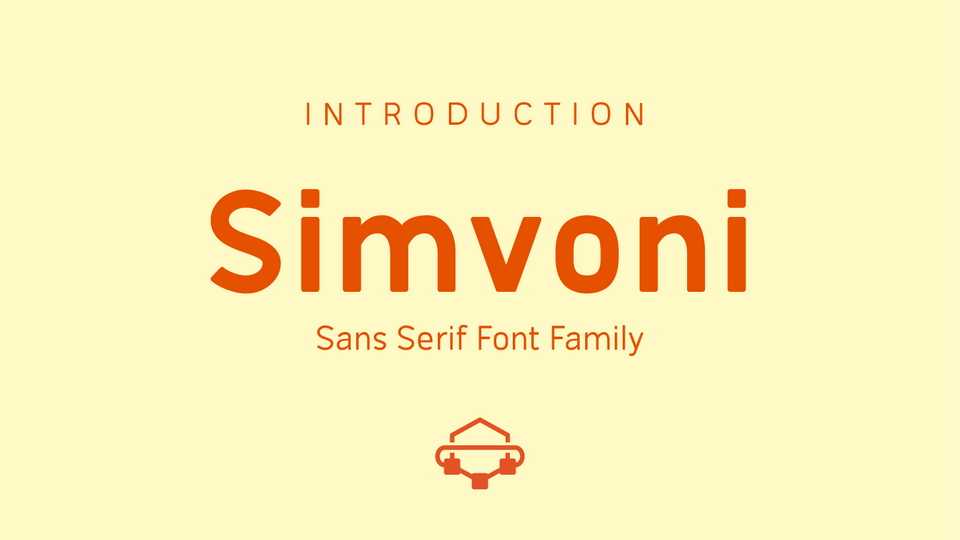
Download Simvoni typeface, a sans serif font family in four styles with slightly rounded shapes to add a warm and friendly look. Simvoni is perfect for headline, logotype, apparel, invitation, branding, packaging, advertising etc.
Designer: Amru ID